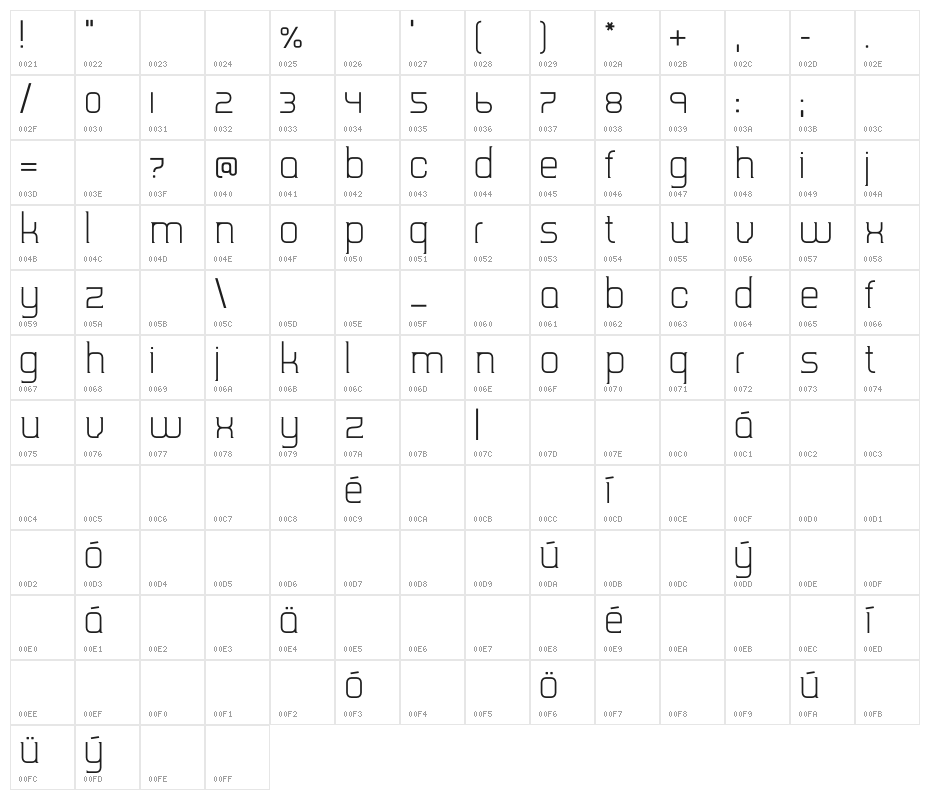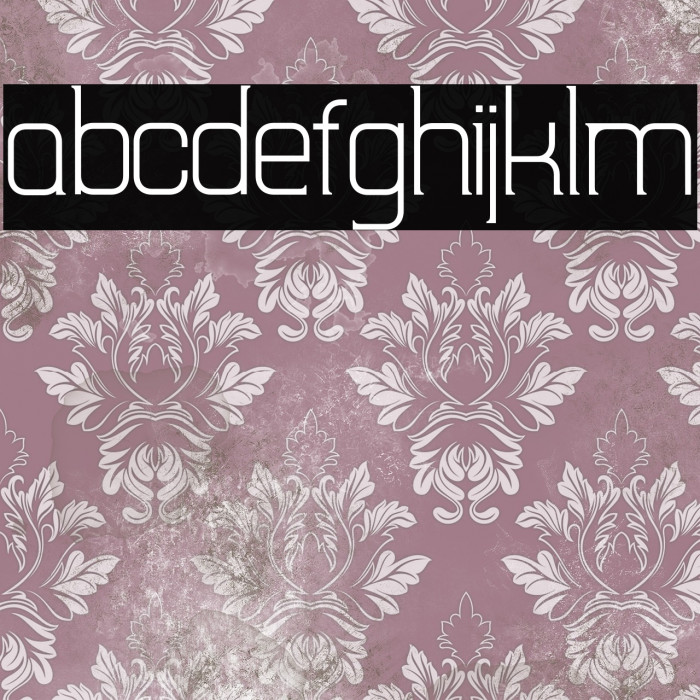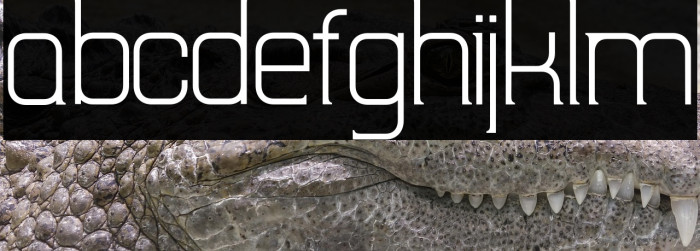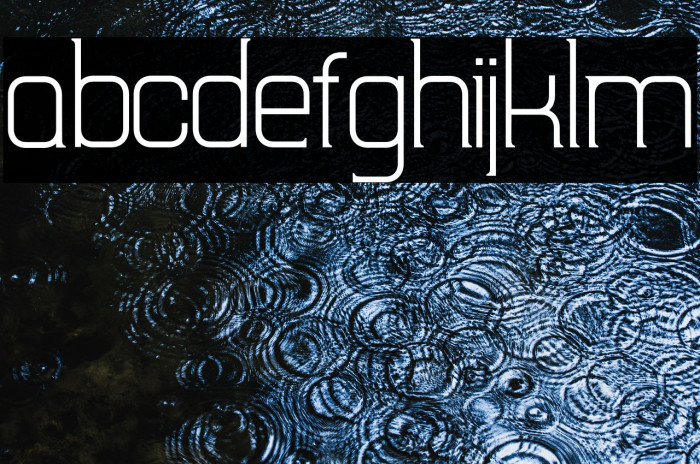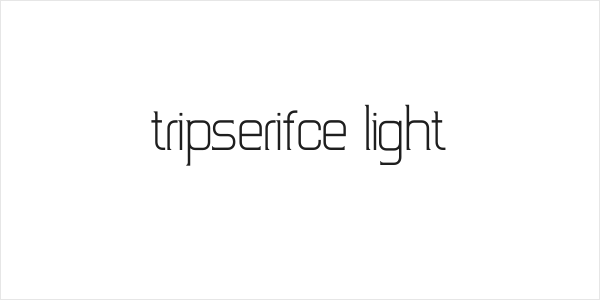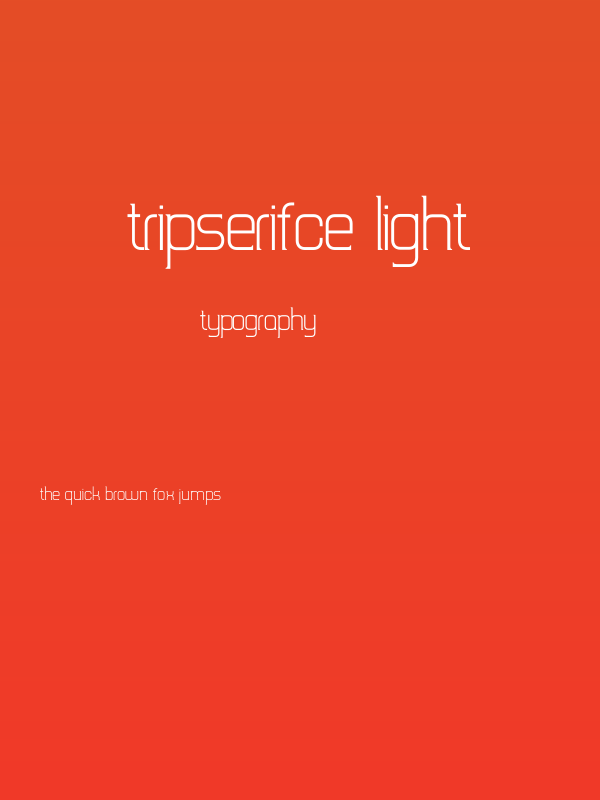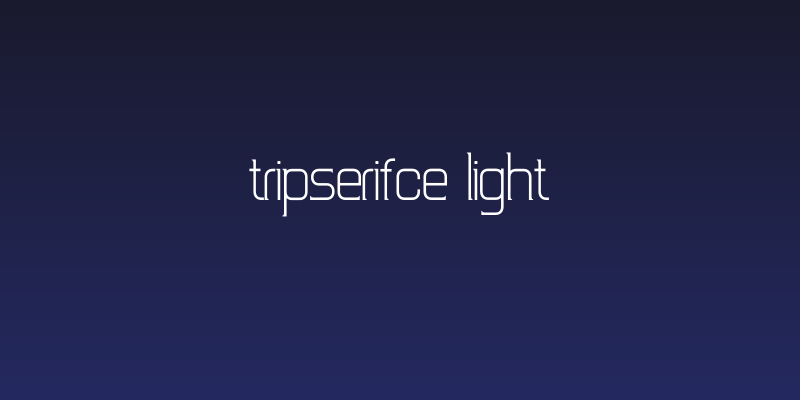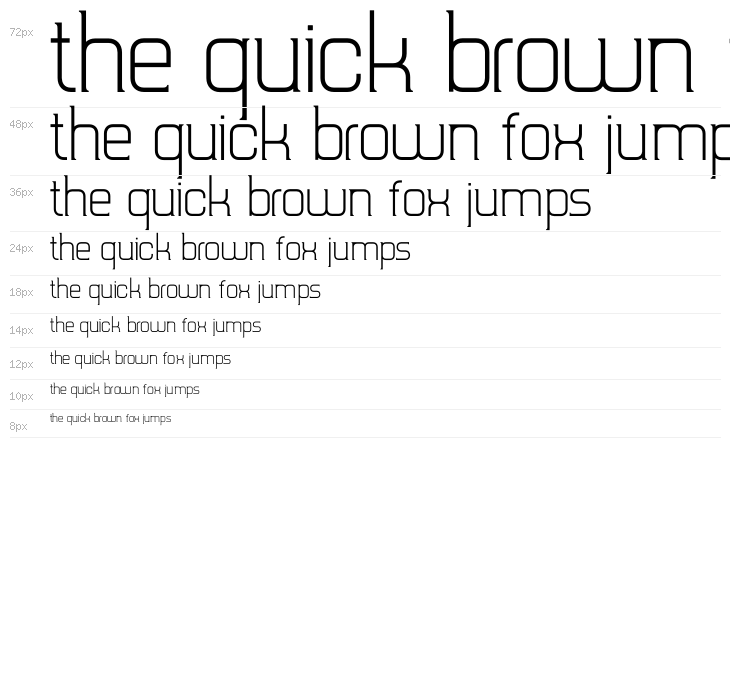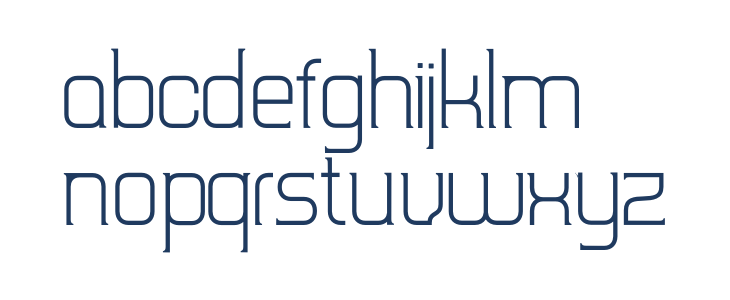
TripSerifCE Light Font
TripSerifCE Light Description
This font features a modern and geometric design with clean, straight lines and a minimalist aesthetic. The characters are constructed with a uniform stroke width, giving it a sleek and contemporary look. The uppercase and lowercase letters maintain a consistent height, contributing to a harmonious appearance. The numerals are distinct and easily readable, while the special characters are designed to match the overall style. This font's simplicity and clarity make it suitable for a variety of design applications.